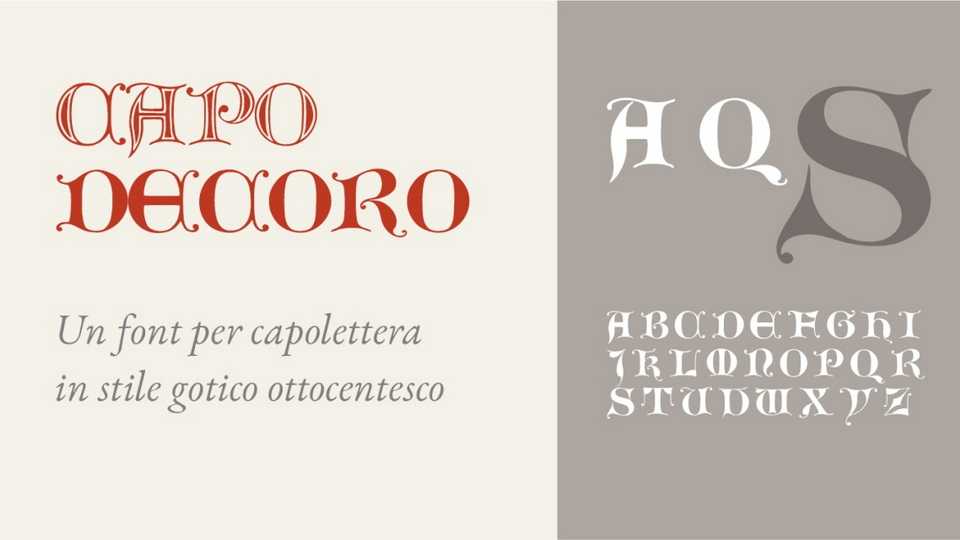
Download Capo Decoro font, a refined display typeface inspired by 19th-century Gothic revival styles, designed specifically for decorative initials and ornamental titles.
Designer: Michele Casanova